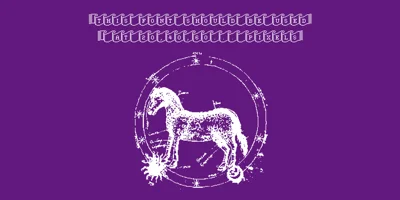
Flat20 Streamer Font
Flat20 Streamer Font presents a modern and dynamic typeface designed specifically for digital streaming platforms and contemporary online content creation. Please note that you must purchase this font for commercial use, though you can download it for free for testing purposes.
This cutting-edge font excels in various design applications including gaming stream overlays, YouTube channel branding, Twitch graphics, social media content, digital advertising campaigns, mobile app interfaces, podcast artwork, and esports tournament designs. Its sleek appearance makes it perfect for projects requiring contemporary digital aesthetics with professional streaming appeal.
Flat20 Streamer Font is exciting because it combines flat design principles with streaming culture aesthetics, featuring clean lines, optimized readability for screen displays, and character formations that remain crisp at various digital resolutions. The font captures the energy of live streaming while maintaining excellent performance across different platforms and devices.
The Flat20 Streamer Font family includes multiple tech-savvy variations: Regular, Bold, Light, and Condensed styles. Some versions feature gaming-inspired elements, notification badges, and digital interface decorations that enhance the streaming aesthetic. These family members provide content creators with comprehensive tools for building cohesive brand identities across multiple platforms.
Whether you're developing streaming graphics, digital content, or tech-focused branding, Flat20 Streamer Font delivers exceptional versatility and modern appeal. This font transforms standard text into engaging digital experiences that resonate with online audiences and communicate innovation with distinctive contemporary flair that defines current streaming culture.